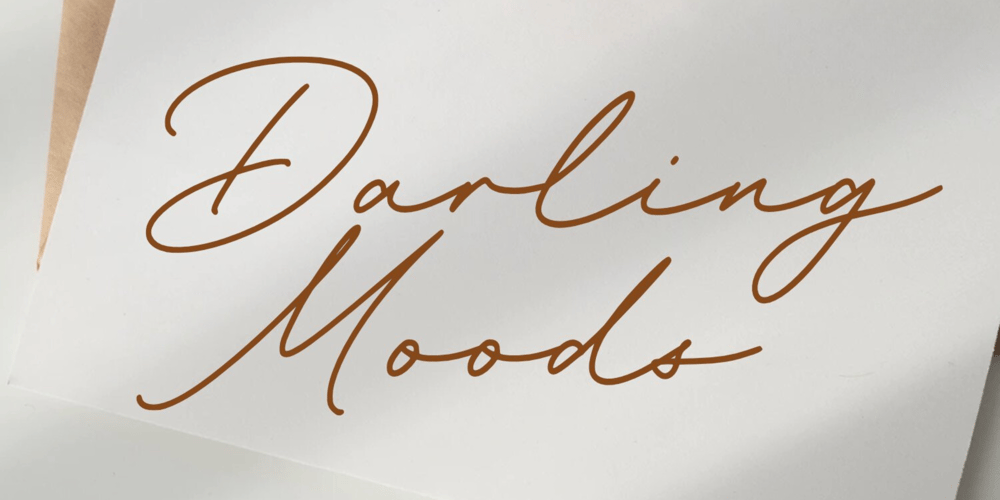
Darling Moods Font Family was designed by Irpan Maulana and published by Create Big Supply. Darling Moods contains 1 styles and family package options. Introducing Darling Moods, a stunning natural handwriting font that adds a touch of authenticity and beauty to your designs. With its realistic hand-drawn style, Darling Moods brings a natural and organic feel to your projects, making it perfect for logos, labels, magazines, books, greeting cards, packaging, and more.The combination of uppercase and lowercase letters in Darling Moods creates a harmonious balance, allowing you to achieve a genuine handwritten look. Whether you’re aiming for a casual or elegant vibe, this font adapts effortlessly to your creative vision.Darling Moods features a comprehensive character set that includes numbers, punctuations, and multilingual support, enabling you to communicate your message effectively in different languages and reach a diverse audience. Enhance the visual appeal of your designs with ligatures, which provide smooth and flowing connections between letters.Designed with PUA (Private Use Area) Encoding, Darling Moods offers access to special characters and glyphs, expanding your creative possibilities. Craft personalized and unique designs with ease using this versatile font.